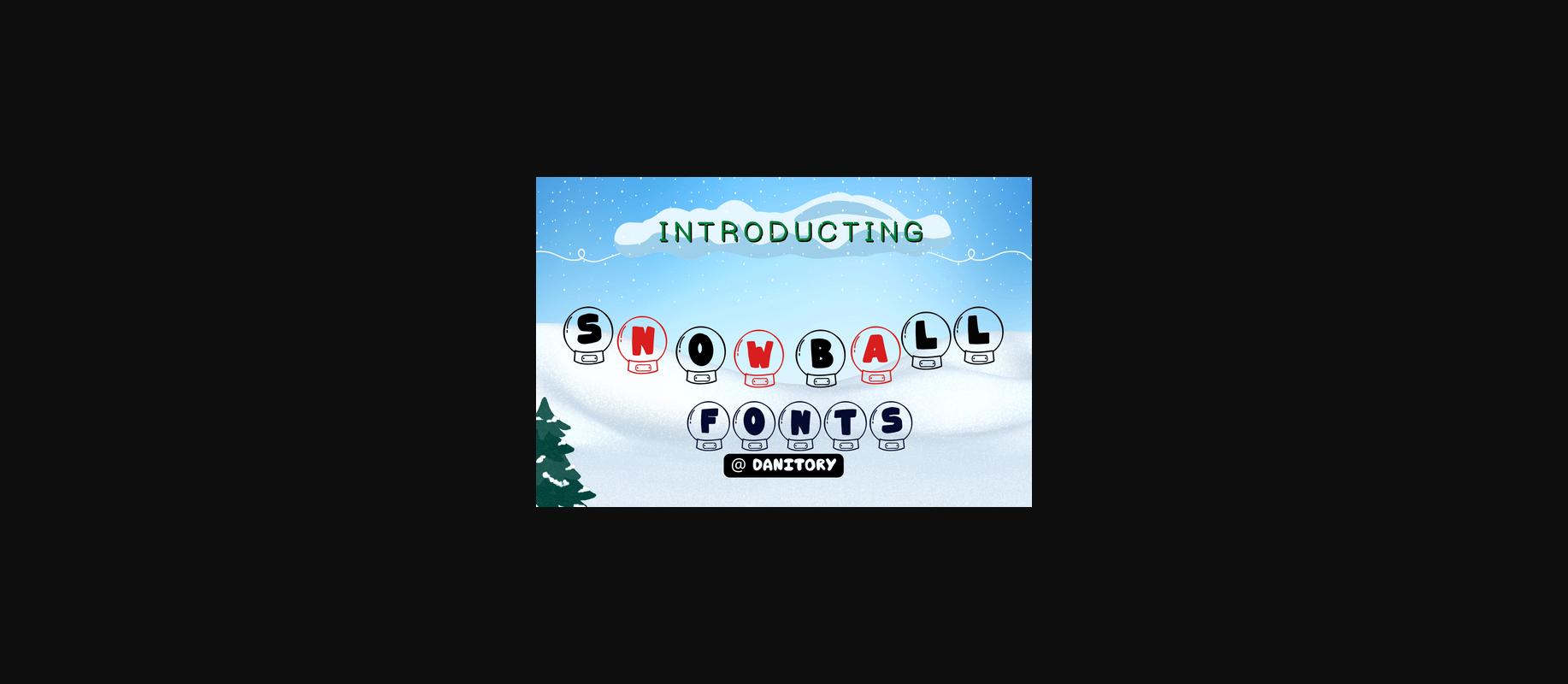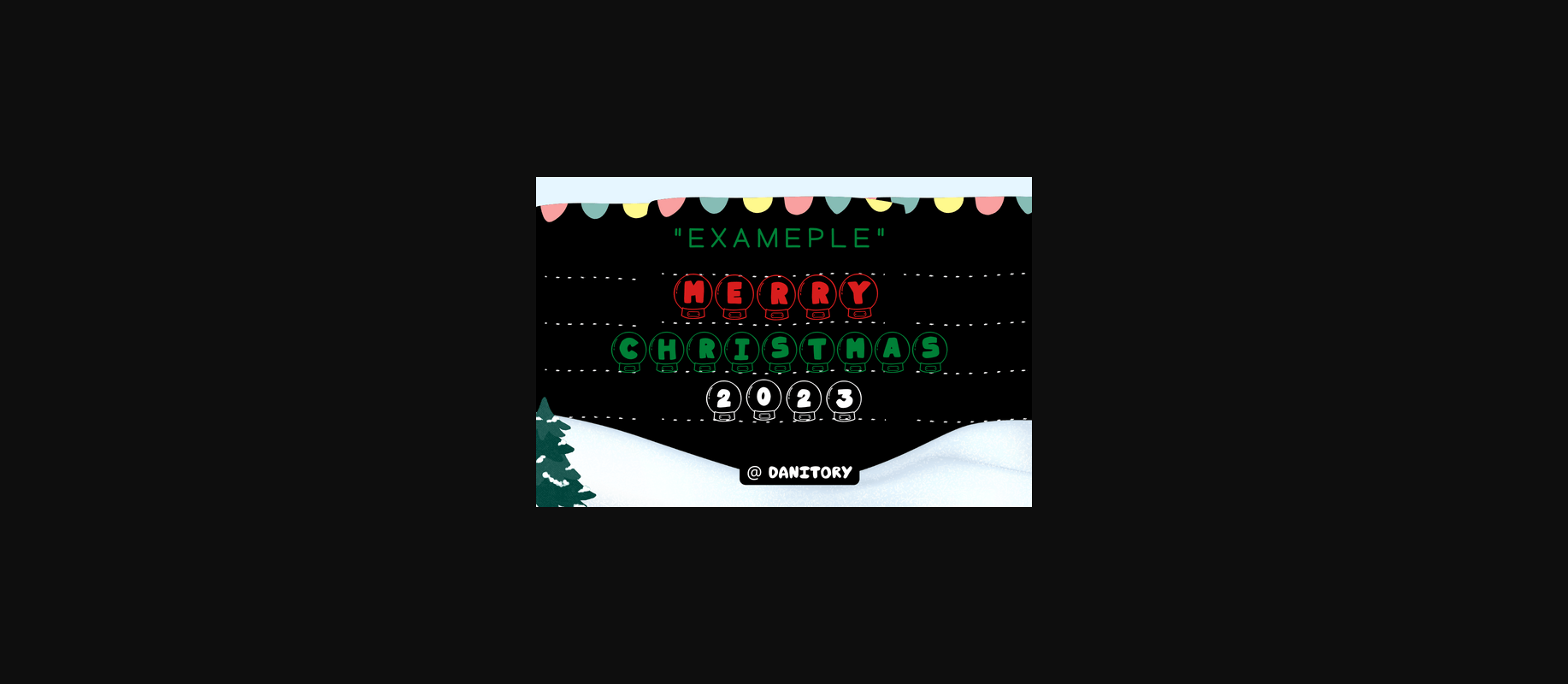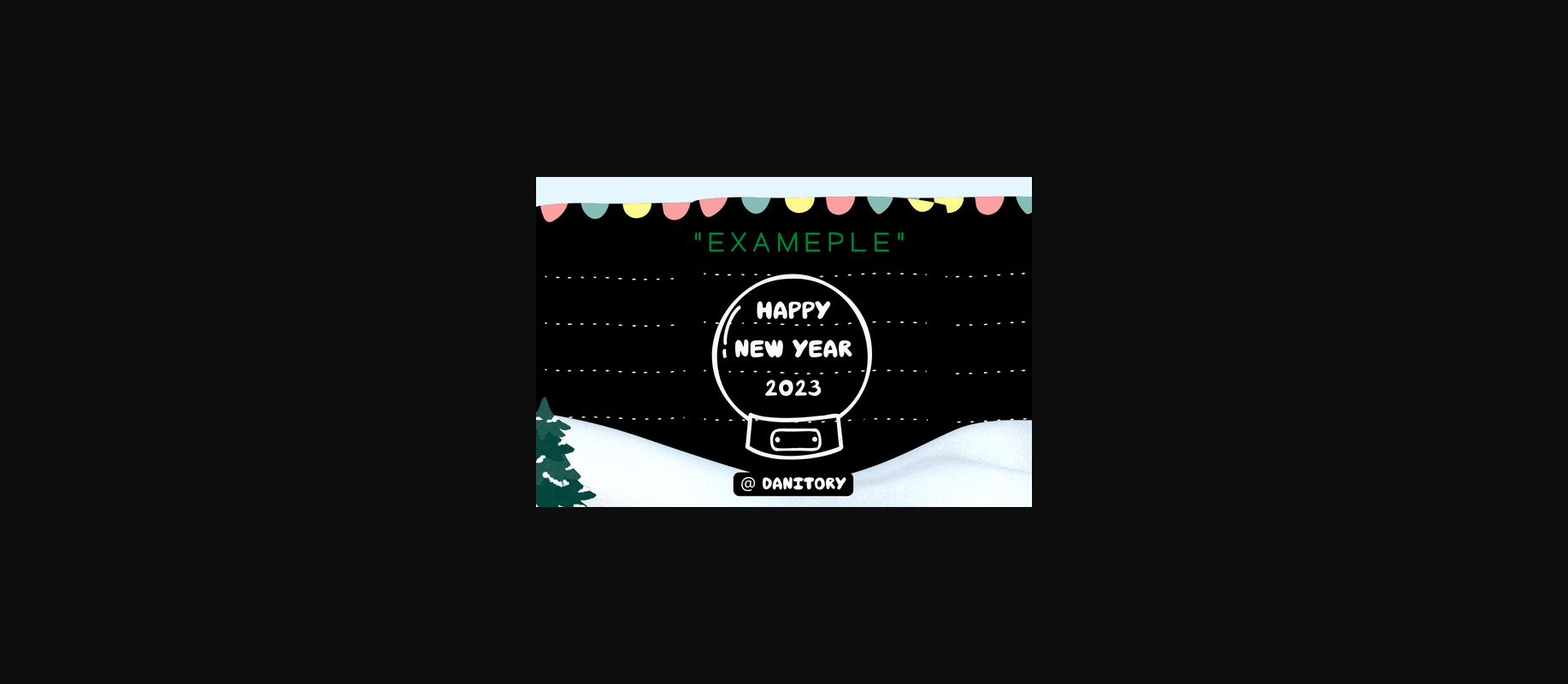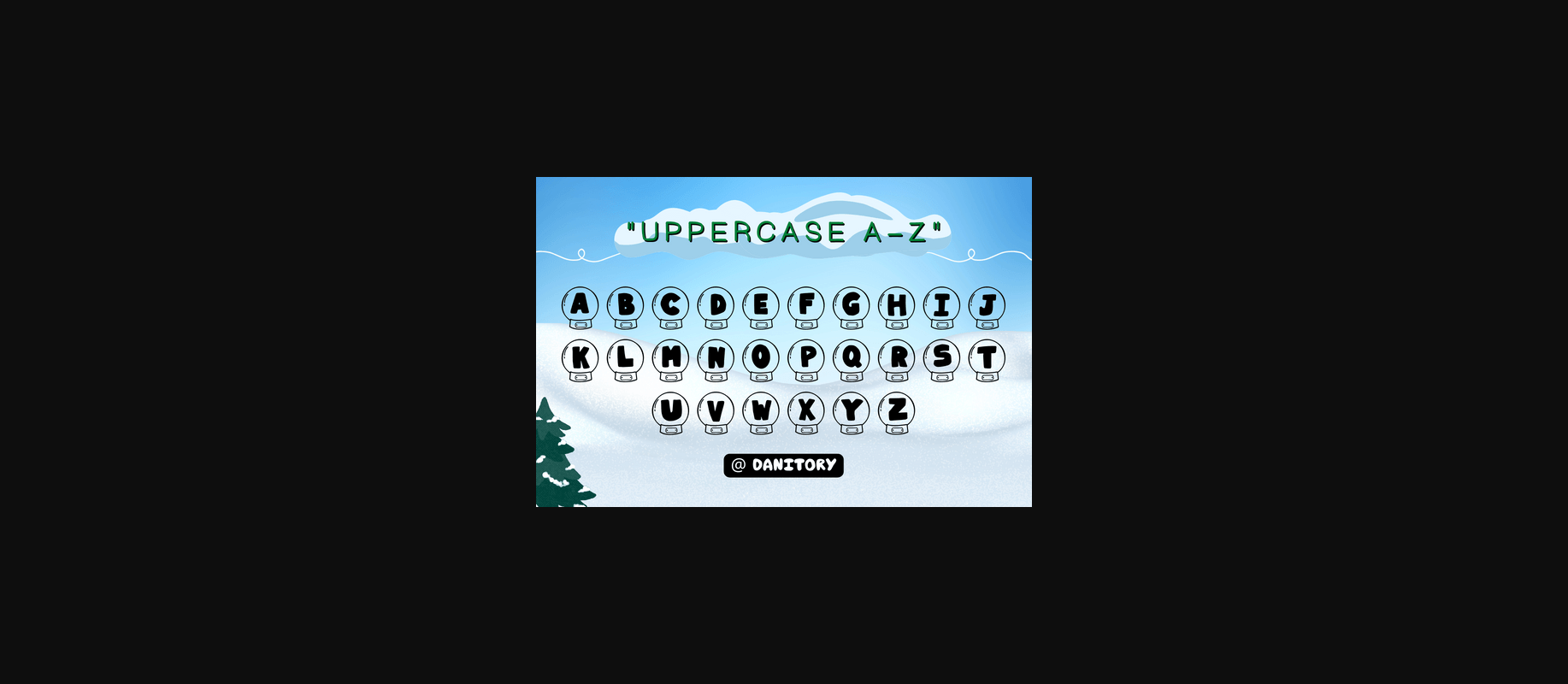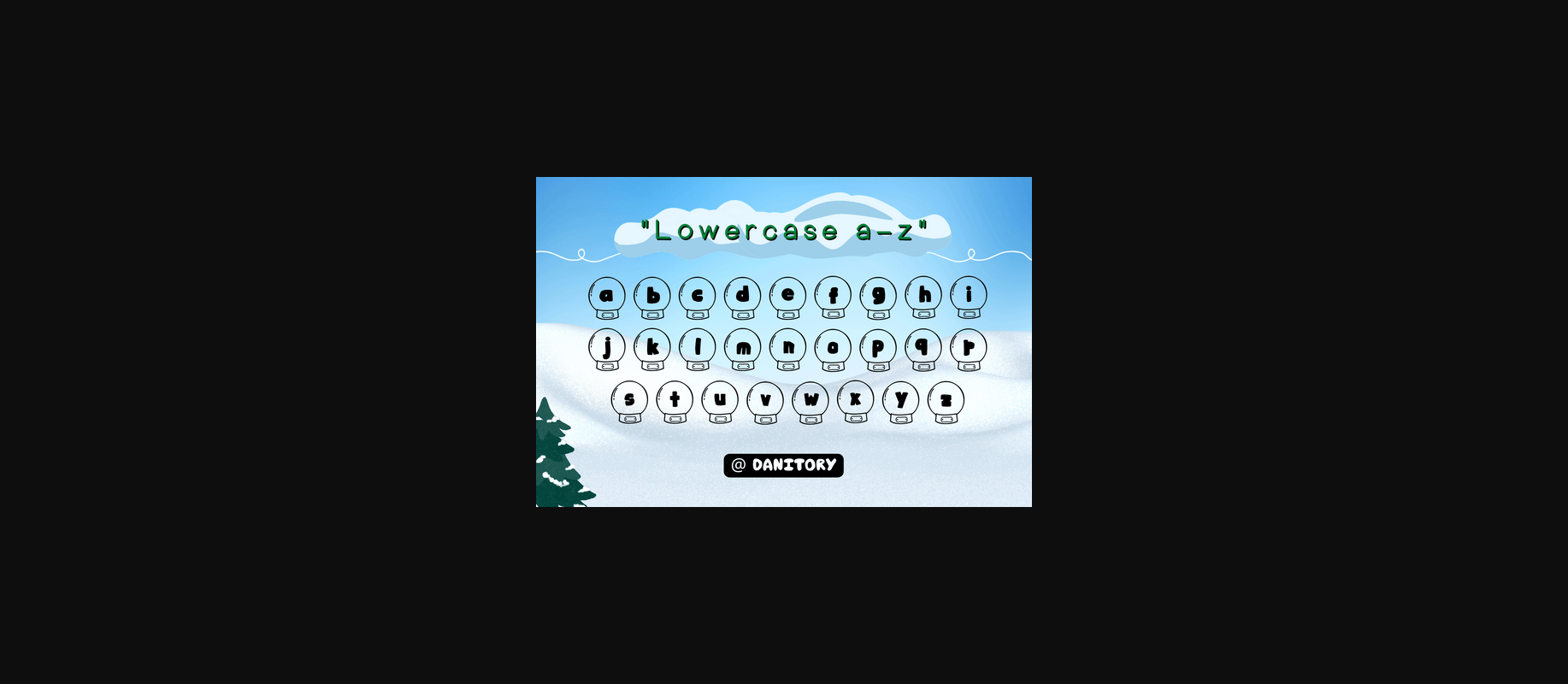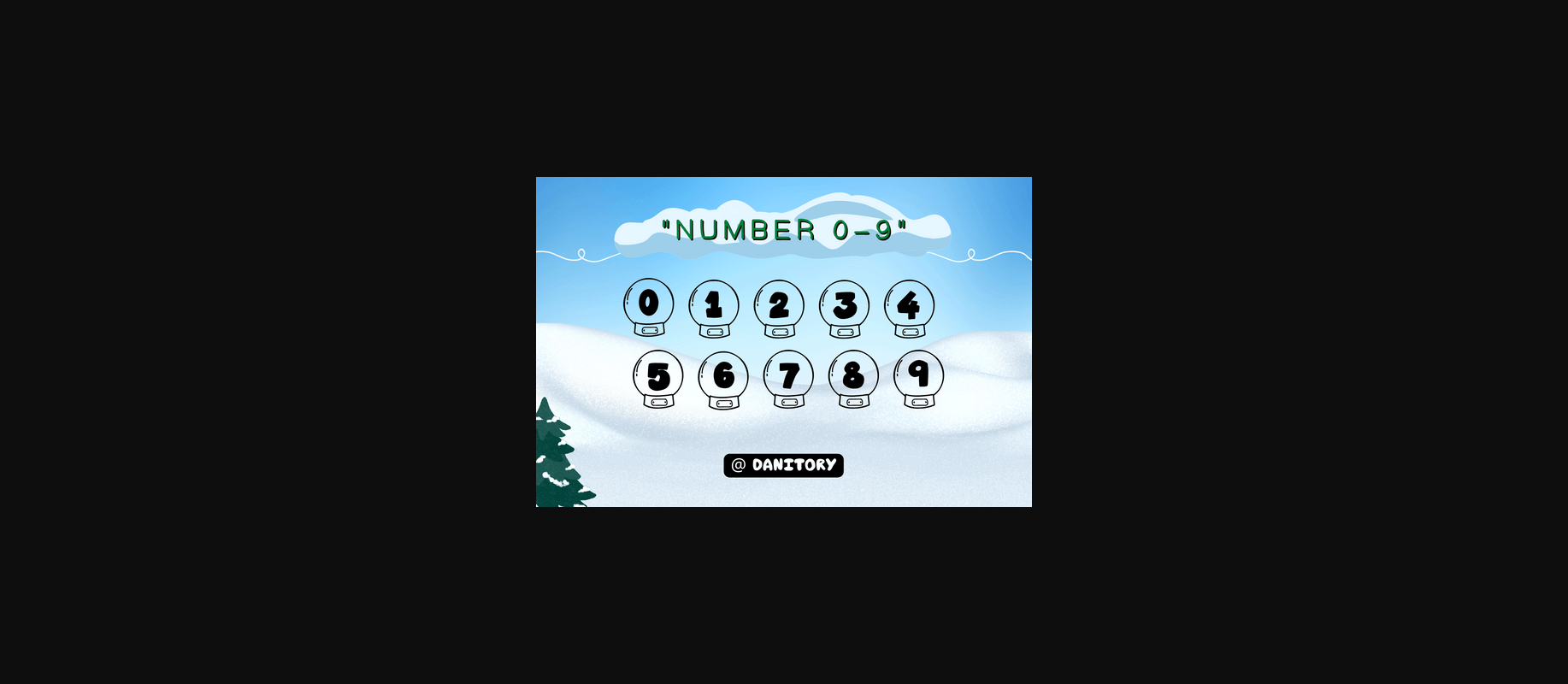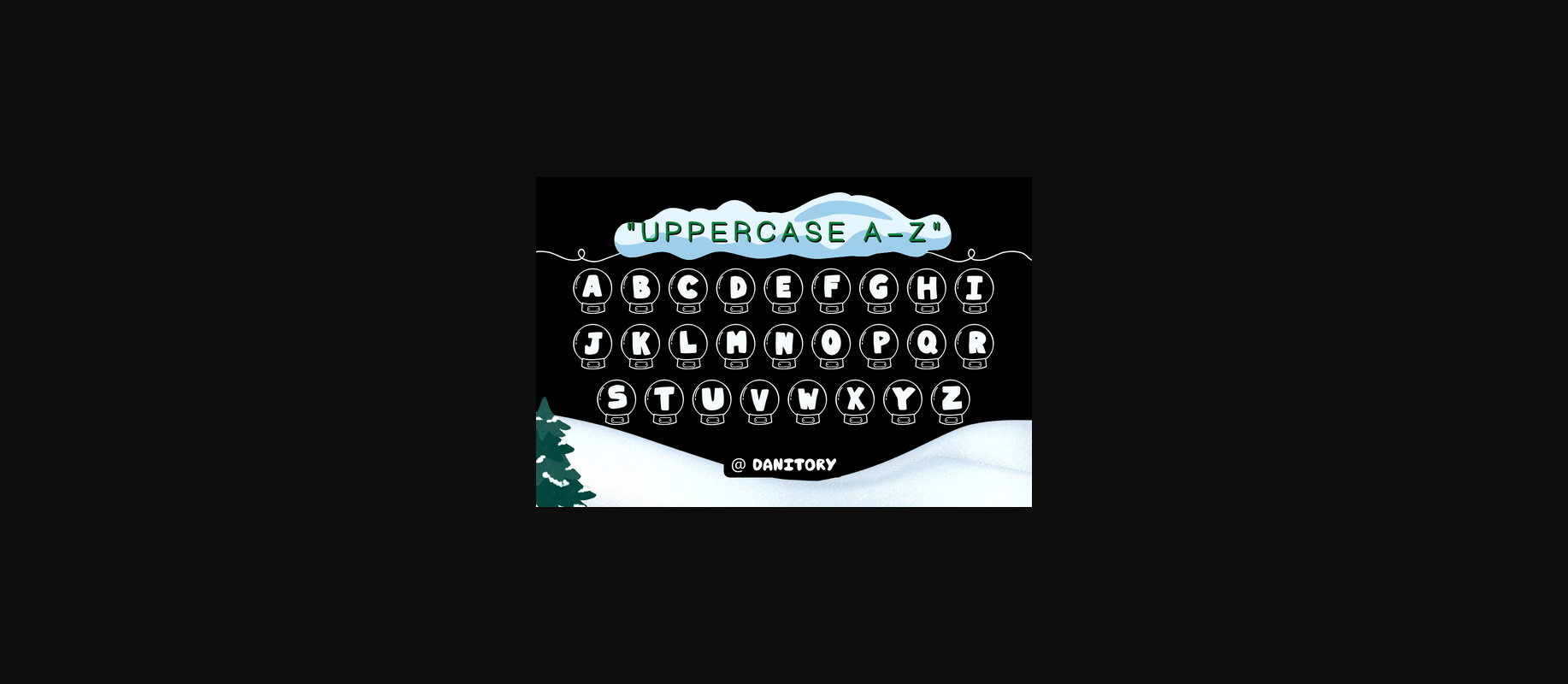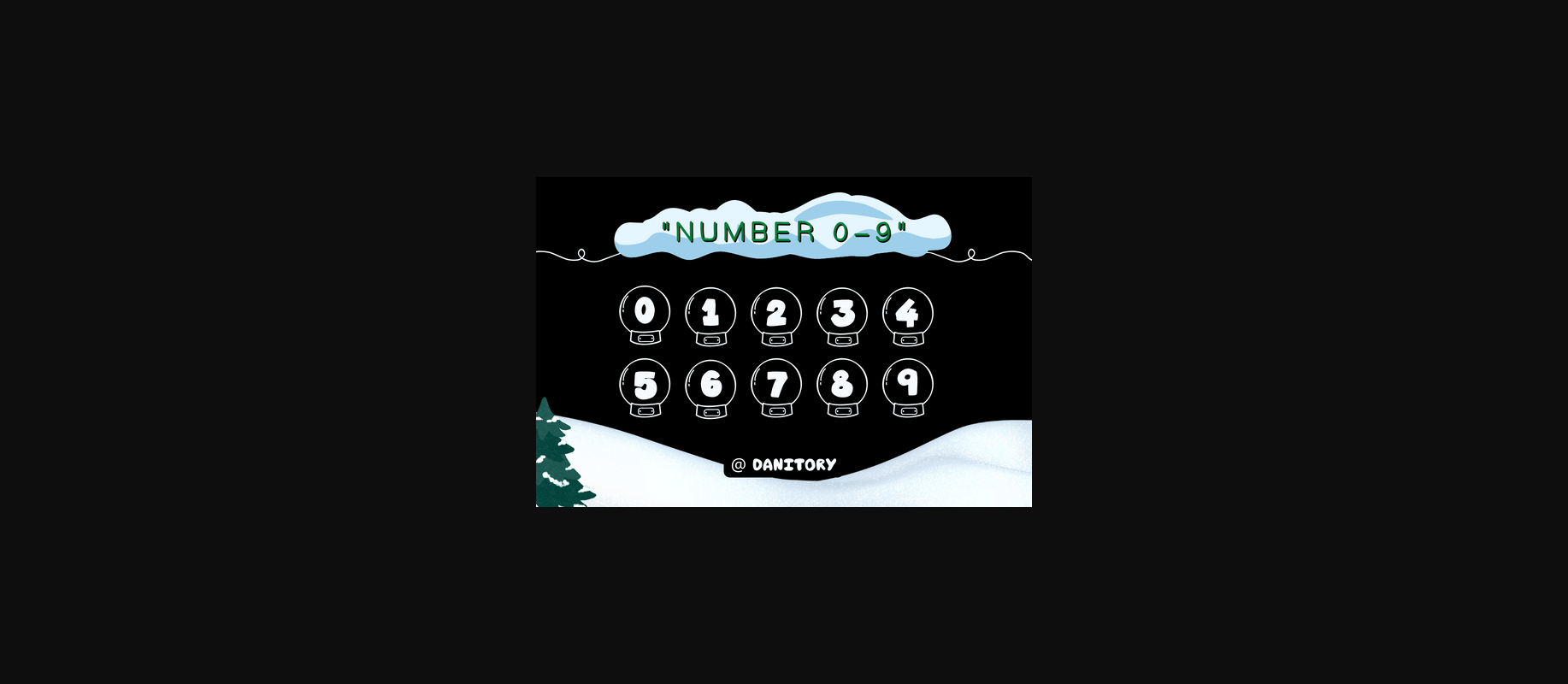
HomeDecorative FontsSnowball Font Decorative Fonts Snowball Font FacebookXPinterestWhatsApp 1 of 11 ... Snowball Font Poster 2... Snowball Font Poster 3... Snowball Font Poster 4... Snowball Font Poster 5... Snowball Font Poster 6... Snowball Font Poster 7... Snowball Font Poster 8... Snowball Font Poster 9... Snowball Font Poster 10... Snowball Font Poster 11... About Snowball Font Snowball is a cute decorative font designed for the upcoming winter season. Add it to your festive crafty ideas and you will be amazed by the results! DOWNLOAD NOW People also explored Buttermilk Biscuit Font Mandala Font Jhoni Alatta Font Hey Babe Font Cinthia Font Shallymore Font Ode Orlando Font Quantum Font Constella Font 298 0 TagsSnowball Font Previous articleChristmas Snowing FontNext articleStocking Christmas Font LEAVE A REPLY Cancel reply Comment: Please enter your comment! Name:* Please enter your name here Email:* You have entered an incorrect email address! Please enter your email address here Website: Save my name, email, and website in this browser for the next time I comment. Personal Use Free Angelitta Personal Use Free Read more about this font Strings Personal Use Free Read more about this font Houstonville Personal Use Free Read more about this font Cataleya Personal Use Free Read more about this font BLOG Using Fonts in Digital Marketing: Tips to Strengthen Your Brand Identity In the realm of digital marketing, every visual element plays a crucial role in shaping a brand's identity, and fonts are no exception. The... Best Fonts for T-Shirt Design – Top 2025 Picks Where to Buy American Fonts Online in 2024 Free Fonts Risk: Why Free Fonts Can Be Dangerous for Designers